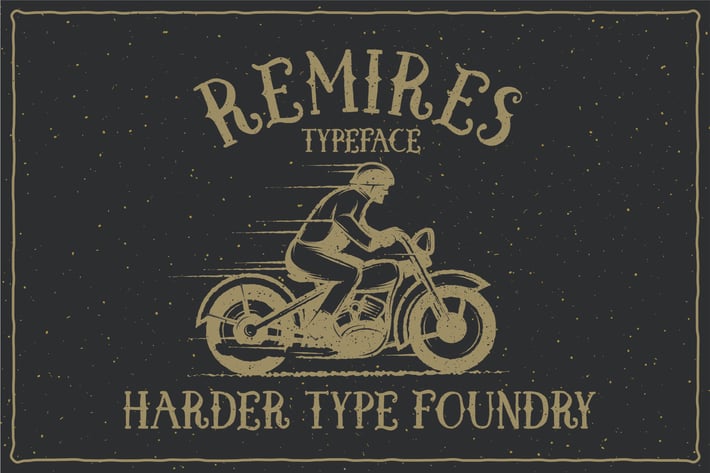
Remires Typeface
Ramires Typeface is lovely font with Vintage style..
Remirez is a great choice for your logo design, clothing, Posters, Vintage Design and many more.